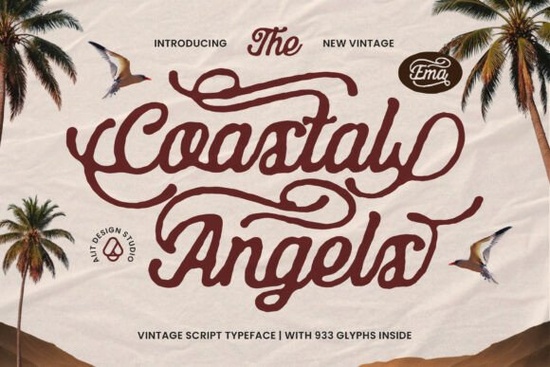
If you’ve been searching for a script font that feels like a sun-bleached postcard from the 1960s beach boardwalk, Coastal Angels Font might be exactly what your next project needs. Designed with thick, flowing strokes and generous swashes, it captures that hand-painted coastal signage vibe perfect for surf shops, summer weddings, or vintage-inspired apparel. Unlike overly ornate scripts that can feel cluttered, Coastal Angels balances retro flair with readability, making it surprisingly versatile for both headlines and short phrases.
What makes Coastal Angels work for real-world projects?
This isn’t just another decorative font it’s built with practical use in mind. The letterforms have a rhythmic, organic flow that mimics natural handwriting, yet maintain consistent weight and spacing. That means it scales well: whether you’re printing it on a tote bag or using it in a digital magazine spread, it holds its character without losing legibility.
For print-on-demand sellers, that reliability matters. Customers scrolling through Etsy or Redbubble respond to authenticity, and fonts like this add instant personality without looking generic. Small businesses think beachside cafés, boutique resorts, or coastal tour operators can use it to craft logos or menus that feel locally rooted and nostalgic.
How does it compare to other vintage scripts?
Among Creative Fabrica’s collection of hand-lettered fonts, Coastal Angels stands out for its mid-century coastal aesthetic. It’s less whimsical than something like Summer Notes, which leans into breezy, casual journaling vibes. And while Fall Diary offers cozy, autumnal warmth with tighter loops, Coastal Angels opens up with wide, airy swashes that suggest ocean breezes and open skies.
If you prefer sketchy, imperfect textures, you might also consider Magic Sketch but keep in mind that Coastal Angels delivers polish alongside its retro charm. For a more refined European script feel, La Cabane offers elegant contrast, whereas Coastal Angels embraces bold, sun-drenched simplicity.
Where should you (and shouldn’t you) use it?
Great fits:
- Event posters for beach weddings, surf competitions, or summer festivals
- Branding for coastal cafes, boutiques, or vacation rentals
- T-shirt and tote bag designs with short, punchy phrases (“Salt Life,” “Seabound,” etc.)
- Editorial headers in travel magazines or lifestyle blogs
Avoid using it for:
- Long paragraphs (it’s a display font, not a body text choice)
- Corporate or formal contexts (its personality is too strong for legal docs or annual reports)
- Overly crowded layouts (give it breathing room to let those swashes shine)
Pairing tip: Keep supporting typefaces clean and neutral. A simple sans-serif like Montserrat or Lato lets Coastal Angels take center stage without visual competition.
Is it beginner-friendly?
That said, if you’re diving deeper, explore OpenType features if your software supports them. Some characters include alternate swash endings that can add extra flair to initials or final letters.
Before you download: a quick checklist
- Test it first: Use the online preview tool to type your actual phrase some swashes may clash depending on letter combinations.
- Consider contrast: This font works best with ample negative space and high-contrast color schemes (e.g., navy on cream, white on coral).
- Don’t overuse it: One headline or logo per design is usually enough. Let it be the accent, not the entire outfit.
If your brand or craft project leans into nostalgia, sunshine, and seaside simplicity, Coastal Angels adds authentic character without trying too hard. Sometimes, the right font doesn’t just spell words it sets a mood.